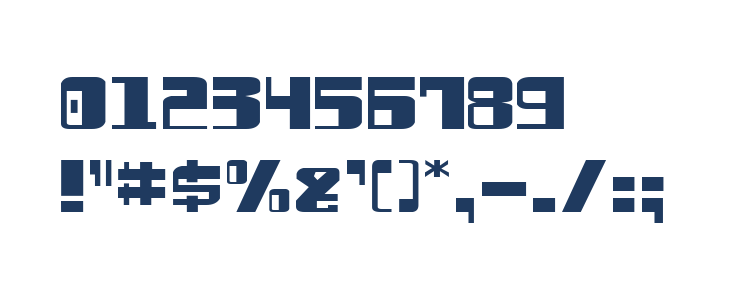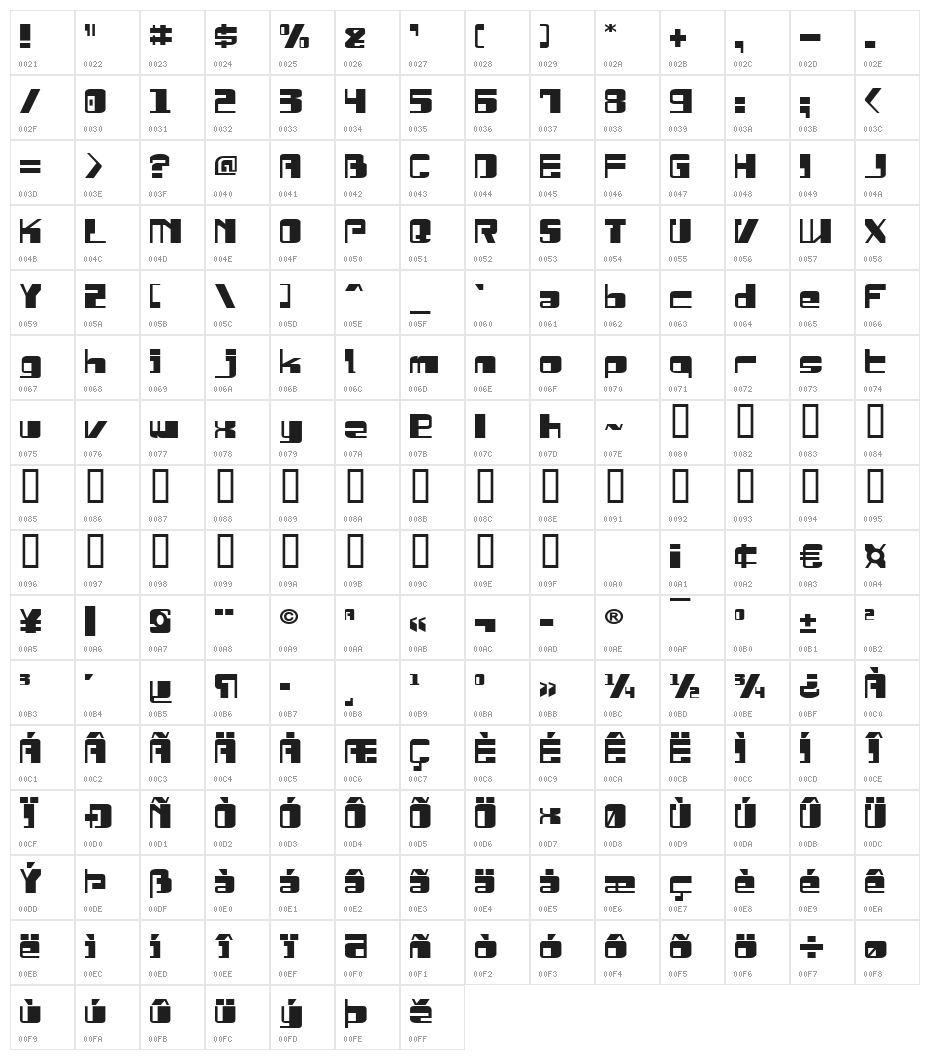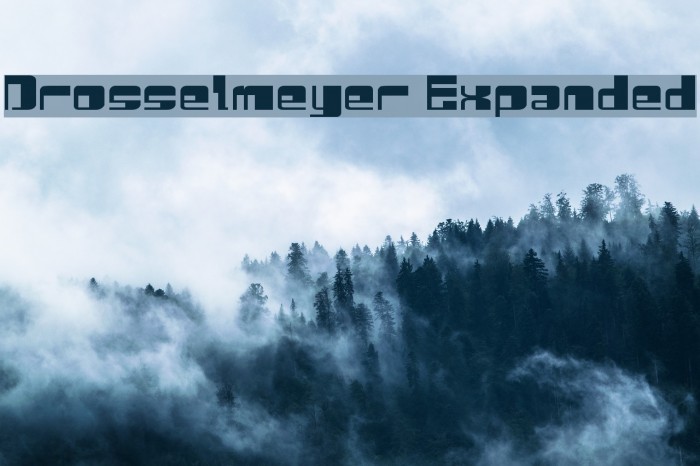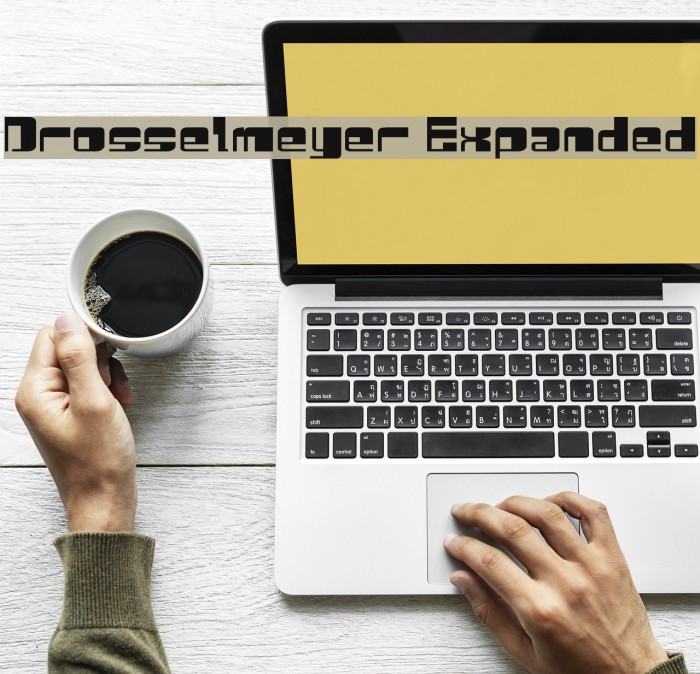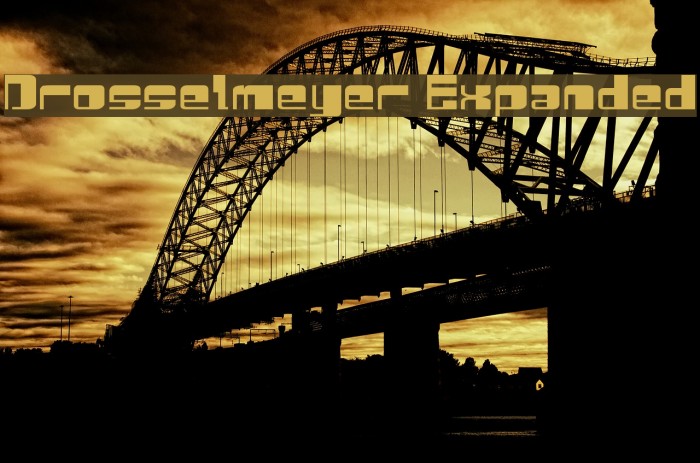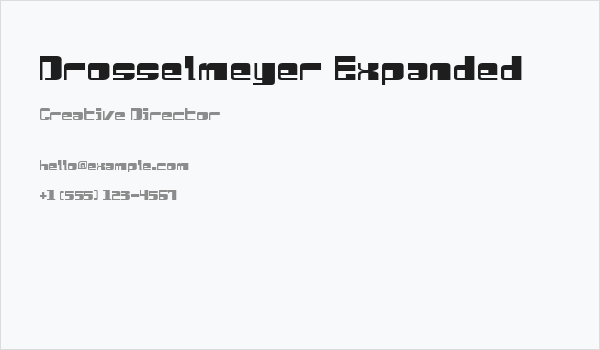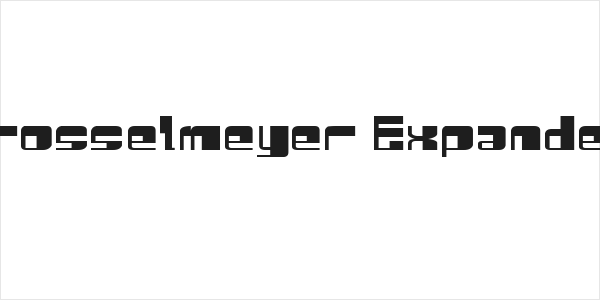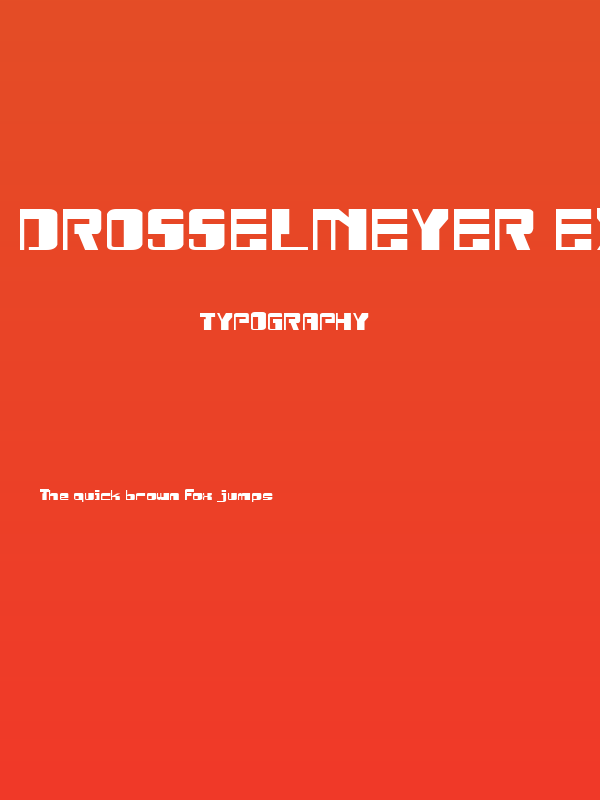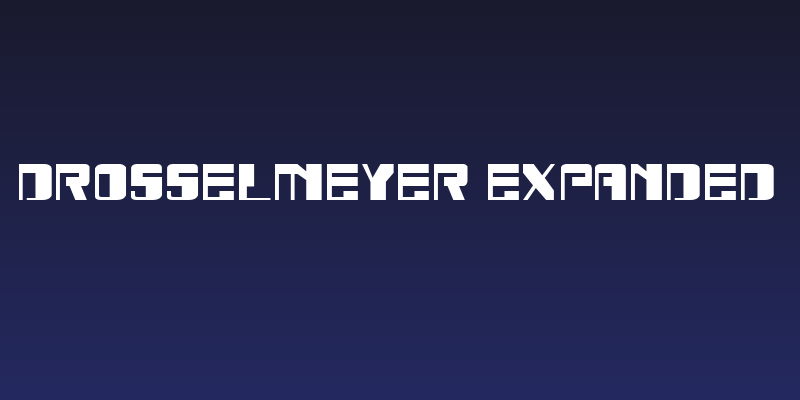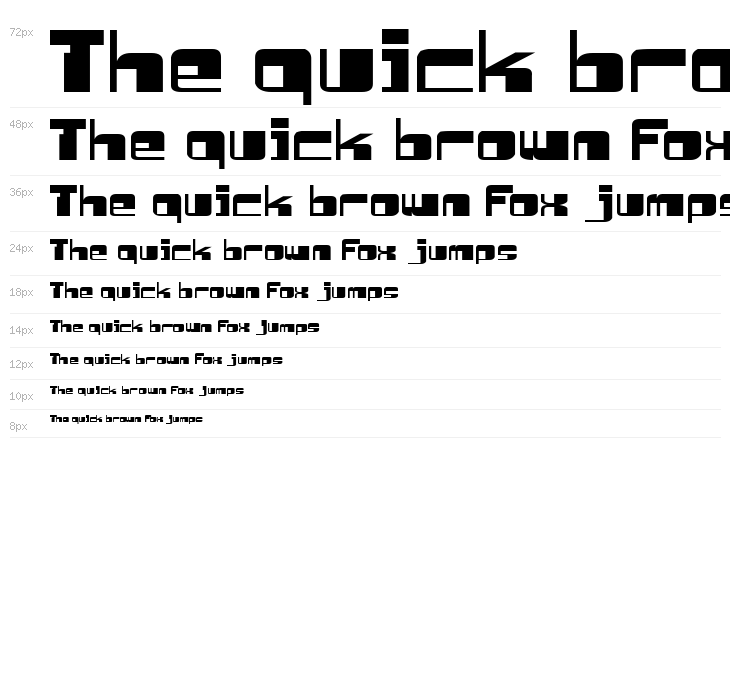
Drosselmeyer Expanded Font
Drosselmeyer Expanded Description
This font features a bold, geometric design with a futuristic flair. The characters are constructed with sharp angles and clean lines, giving it a modern and edgy appearance. The uppercase letters are particularly striking, with a blocky and robust form that commands attention. Lowercase letters maintain the same geometric style, ensuring consistency throughout the typeface. Numbers and special characters are equally bold, making them stand out in any design. The overall look is both innovative and versatile, suitable for a variety of creative applications.